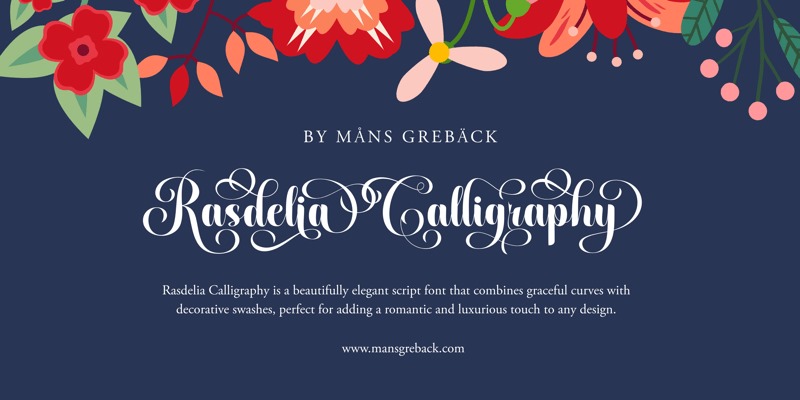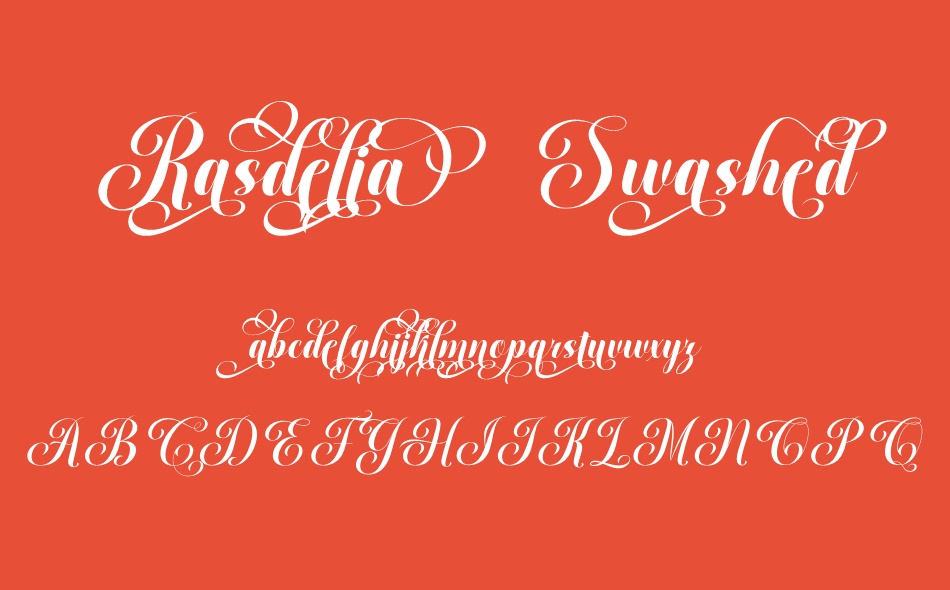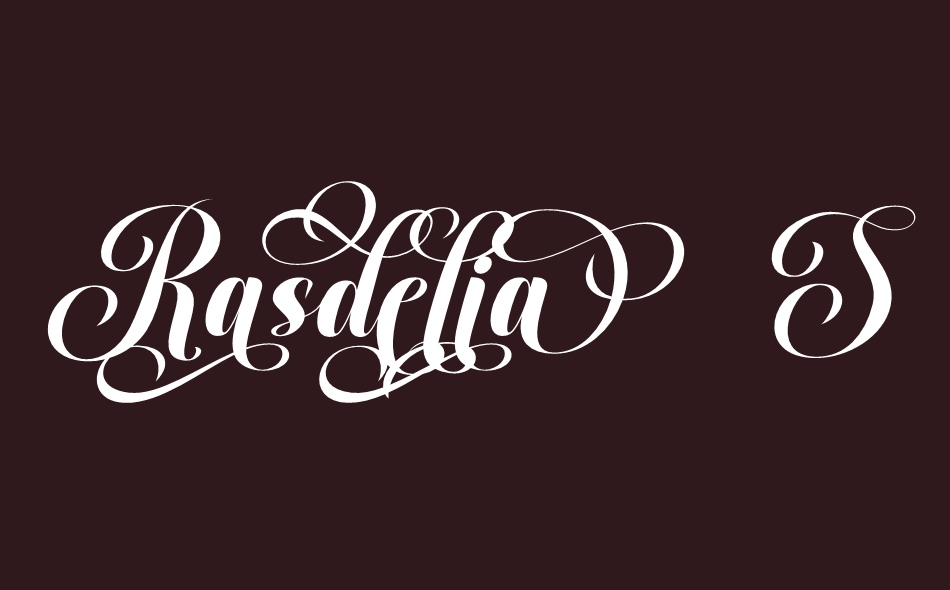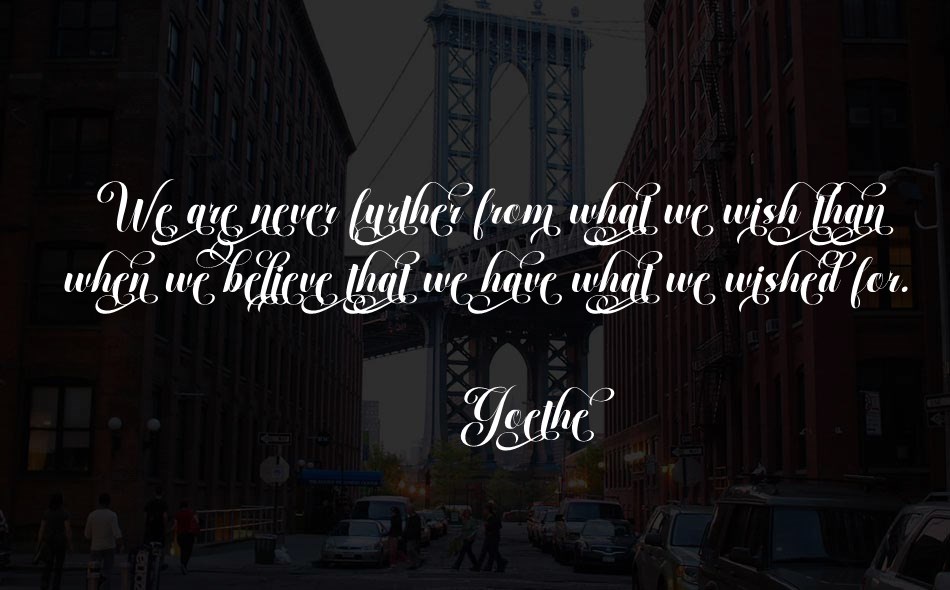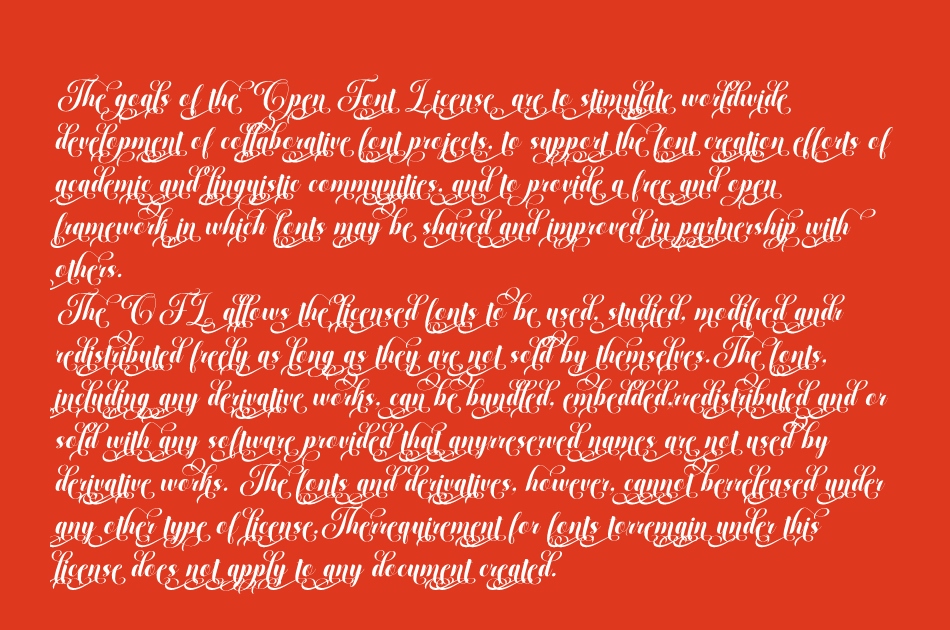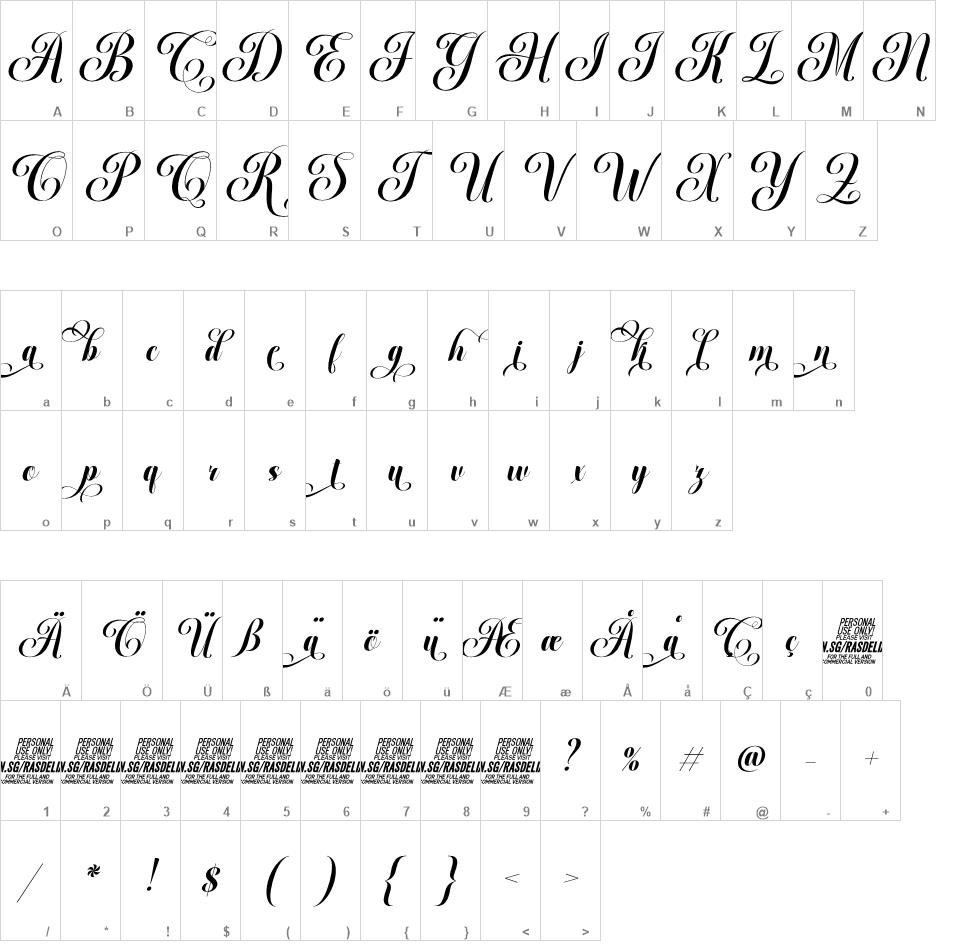
Rasdelia Calligraphy font
Rasdelia Calligraphy is a bold script typeface with high-contrast curves and extravagant swashes. Designed with precision and flair, it merges classic calligraphy with modern typography, balancing delicacy with power. With thick downstrokes and elegant upswings, each letter flows into the next with rhythmic grace.
Rasdelia Calligraphy is a bold script typeface with high-contrast curves and extravagant swashes. Designed with precision and flair, it merges classic calligraphy with modern typography, balancing delicacy with power.
With thick downstrokes and elegant upswings, each letter flows into the next with rhythmic grace. The uppercase set is adorned with ornate loops, while the lowercase remains confident and smooth, making the design feel at once traditional and forward-looking. Ideal for creating a grand signature or a headline that speaks with unmistakable character.
The font is built with advanced OpenType functionality and guaranteed top-notch quality, containing stylistic and contextual alternates, ligatures and more automatic and manual features; all to give you full control and customizability.
It has extensive lingual support, covering all Latin-based languages, from North Europa to South Africa, from America to South-East Asia. It contains all characters and symbols you'll ever need, including all punctuation and numbers.